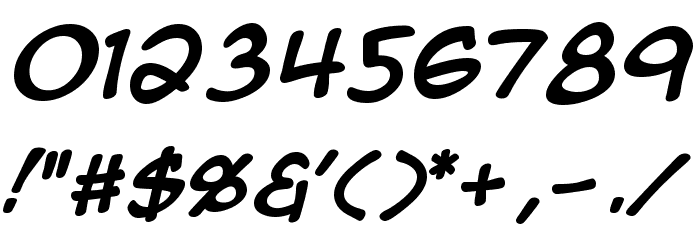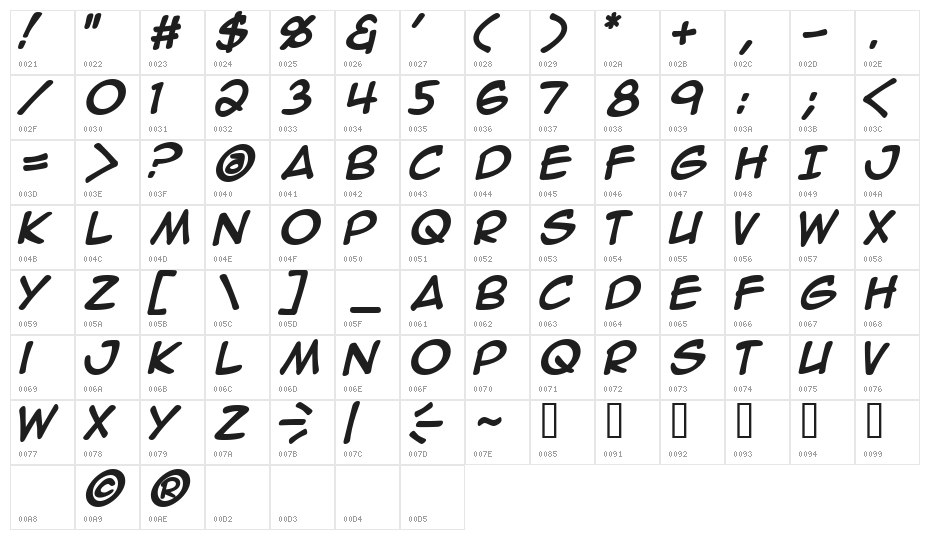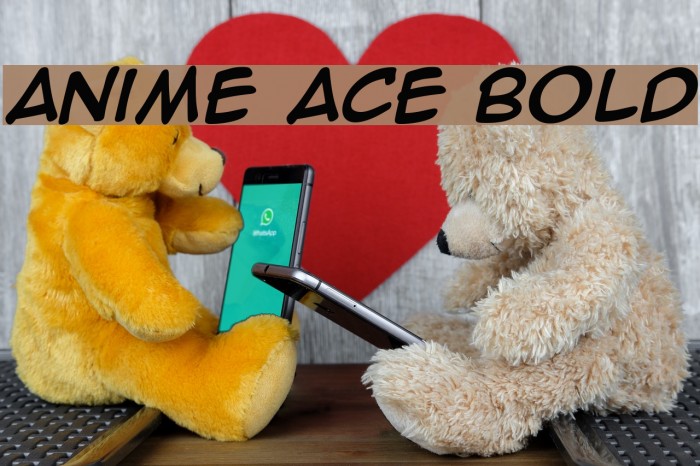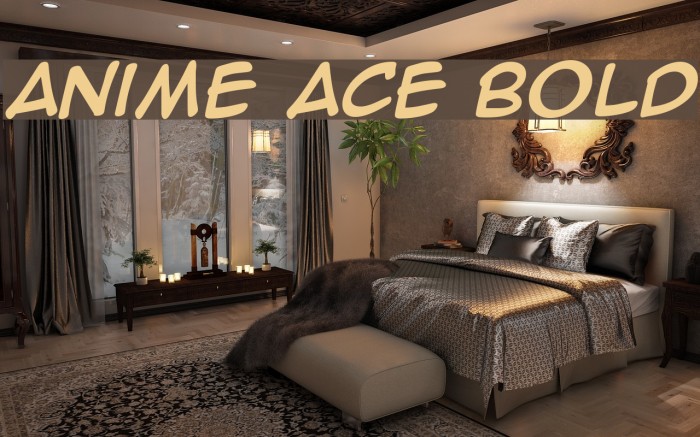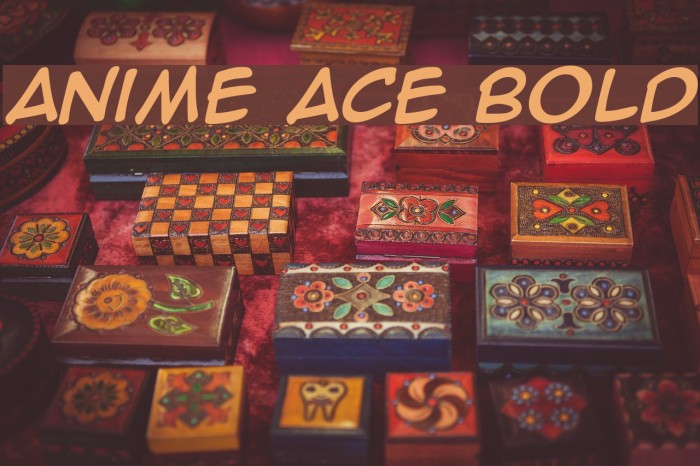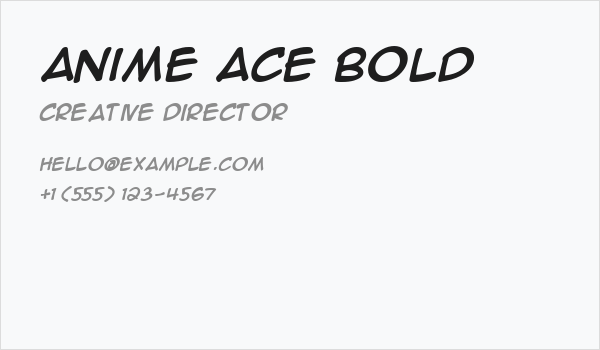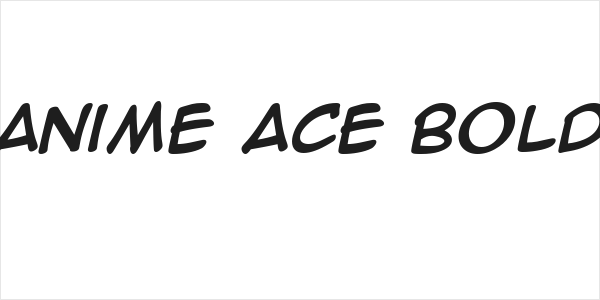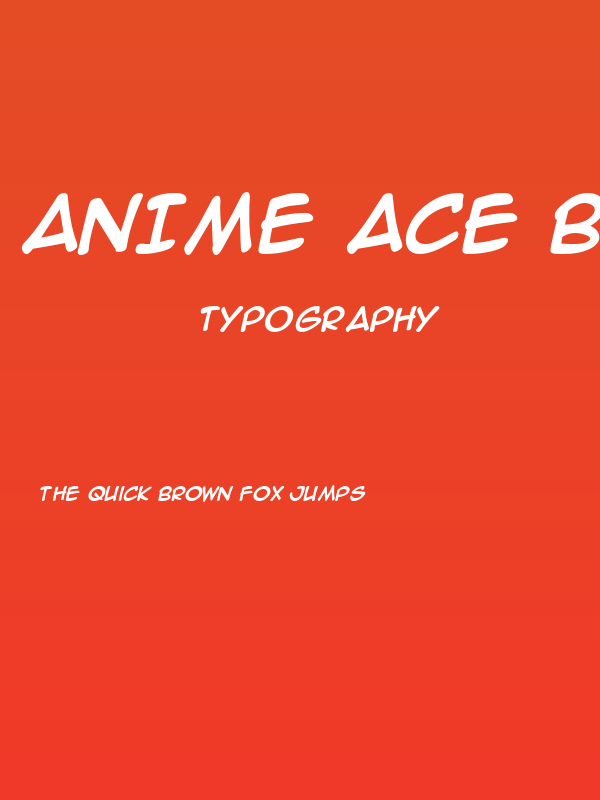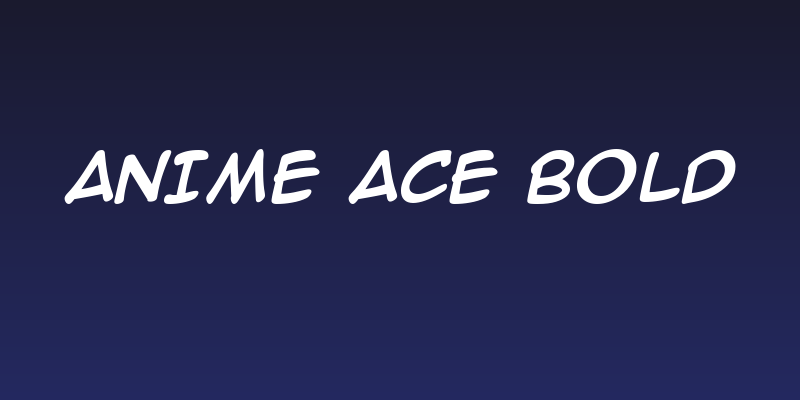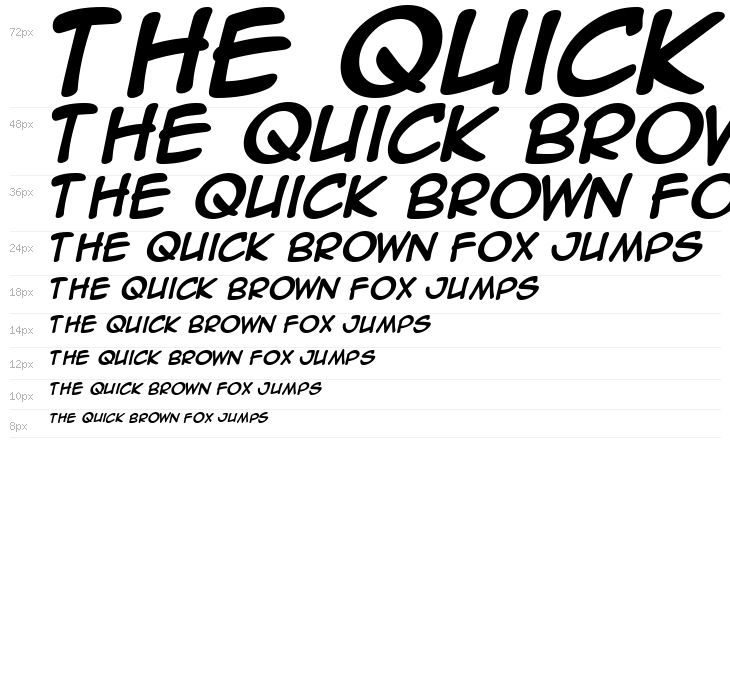
Anime Ace Bold Font
Anime Ace Bold Description
This font features a playful and dynamic style, characterized by its bold and rounded letterforms. The strokes are smooth and slightly italicized, giving it a sense of movement and energy. The uppercase and lowercase letters maintain a consistent style, with a slight slant that adds to its informal and friendly appearance. The numerals and special characters are designed to match the overall aesthetic, ensuring a cohesive look across all text elements. This font is particularly suitable for projects that require a fun and approachable feel.
| Overall Style | Playful, Informal |
| Proposed Projects | Comic books, children's books, playful branding, and casual invitations. |